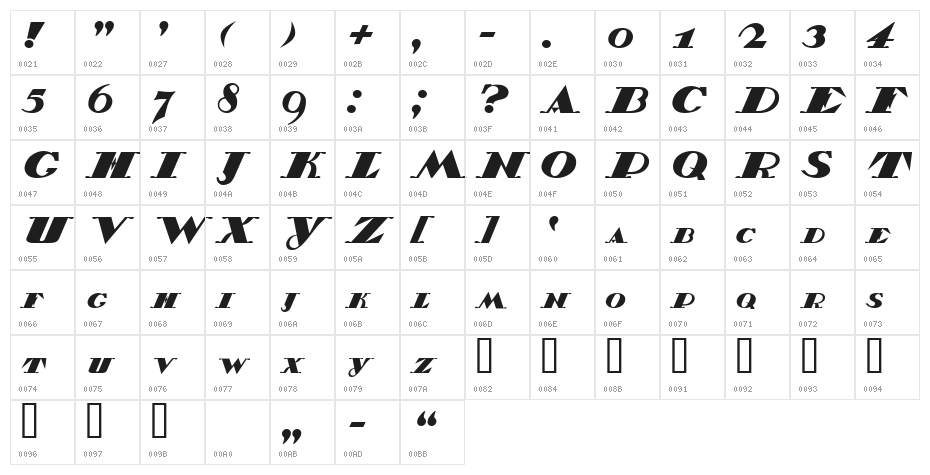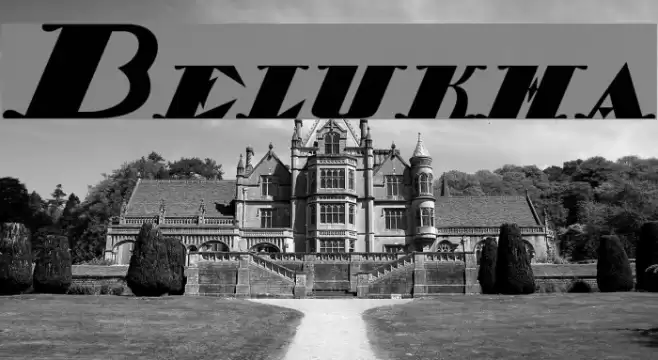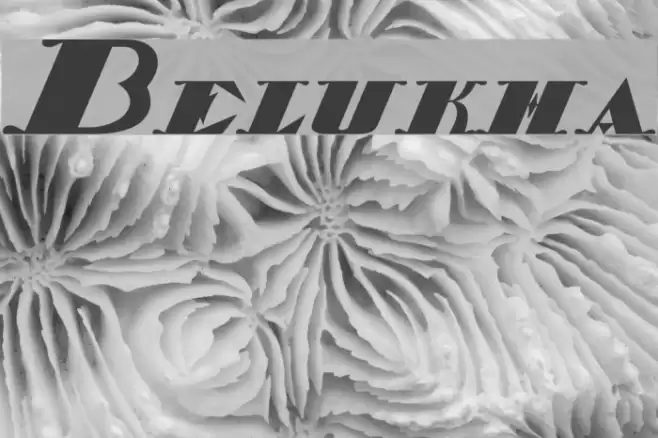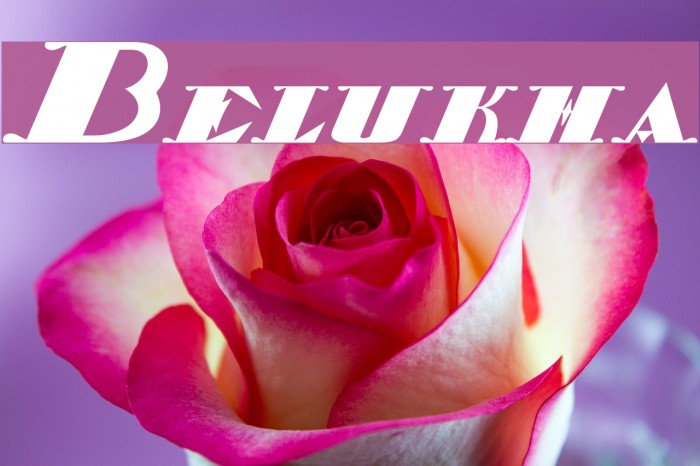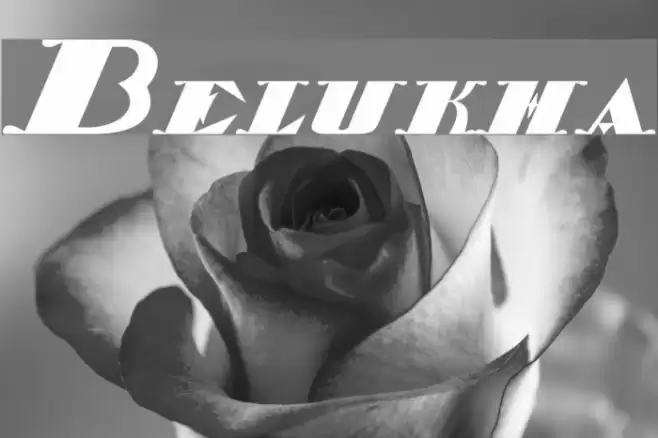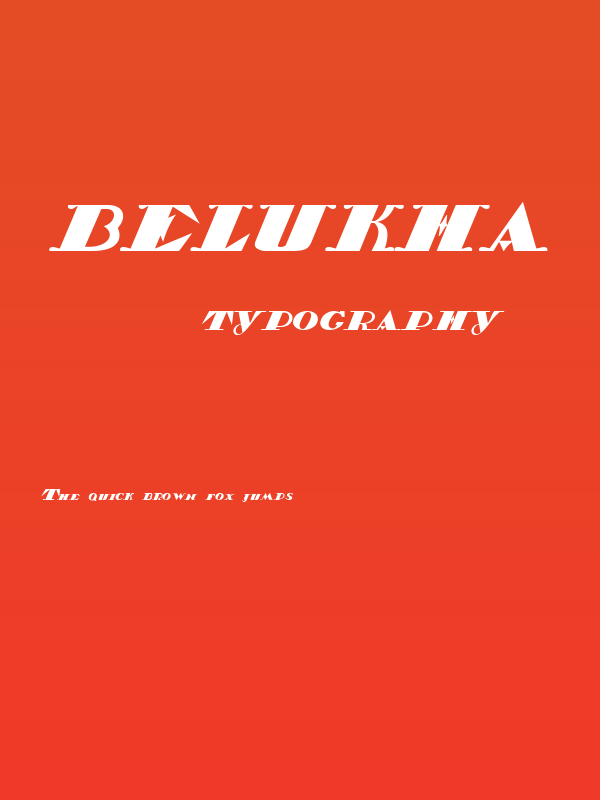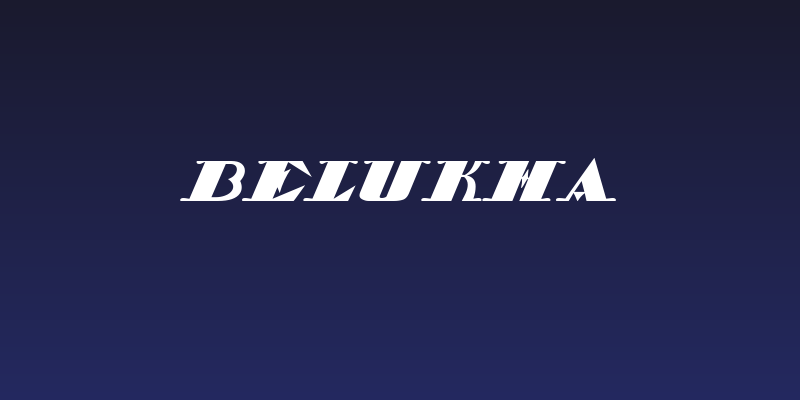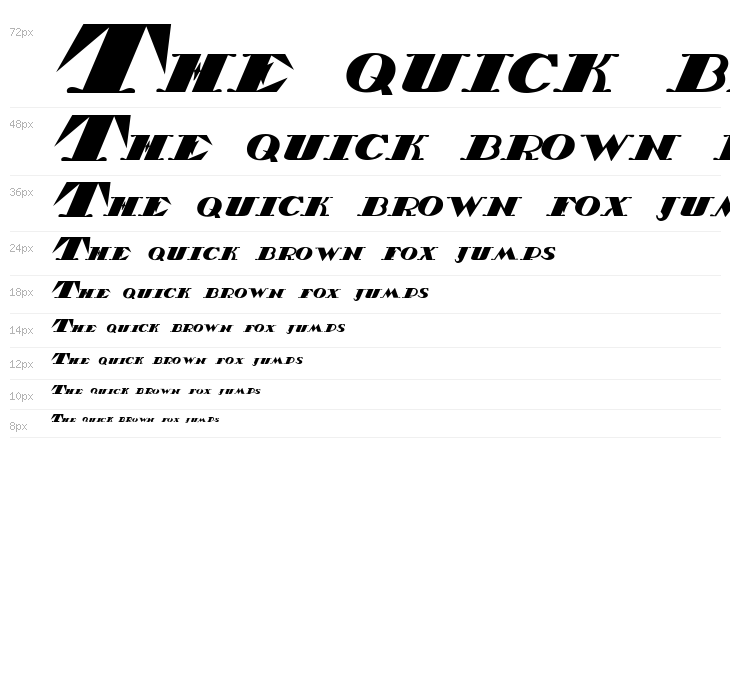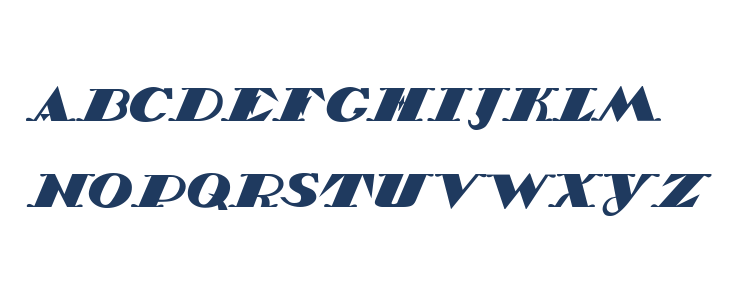
Belukha Font
Belukha Description
This font exhibits a bold, italicized style with a strong presence. The characters are sharply angled, giving a dynamic and energetic feel. The uppercase letters are particularly striking, with exaggerated serifs that add a sense of movement and flair. The lowercase letters maintain the same boldness, ensuring consistency throughout the typeface. The numerals are equally bold, with a slight slant that complements the overall italic nature of the font. Special characters are designed to match the bold and italic style, making them cohesive with the rest of the typeface. This font is ideal for making a statement, with its high contrast and distinctive style.
| Proposed Projects | Ideal for branding, headlines, posters, and any design that requires a bold statement. |